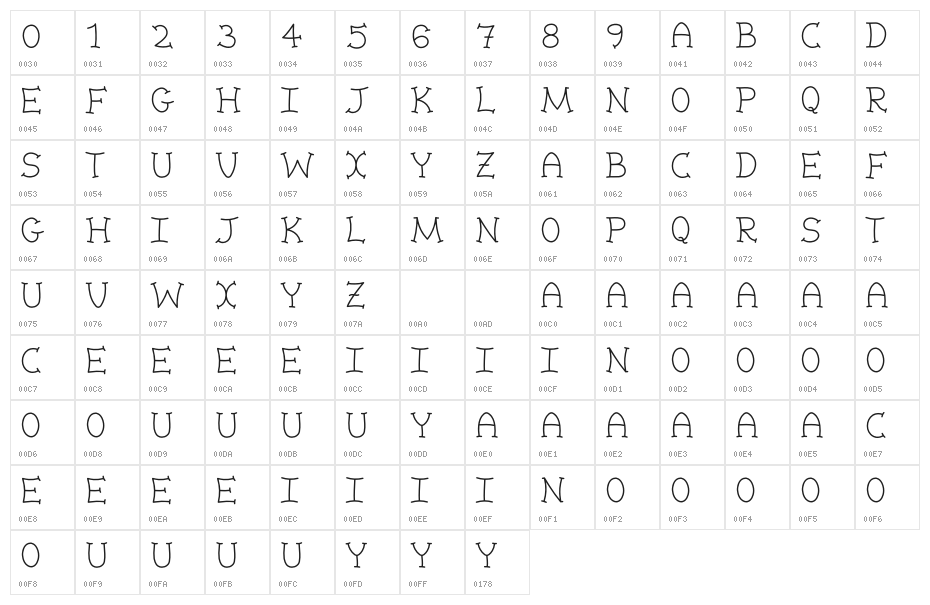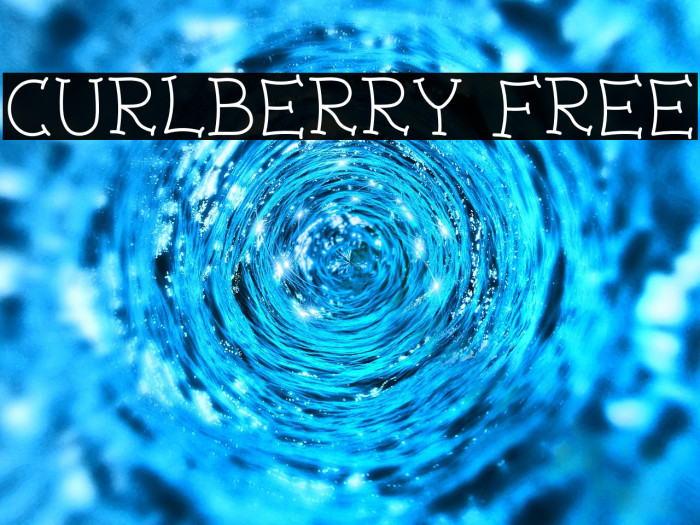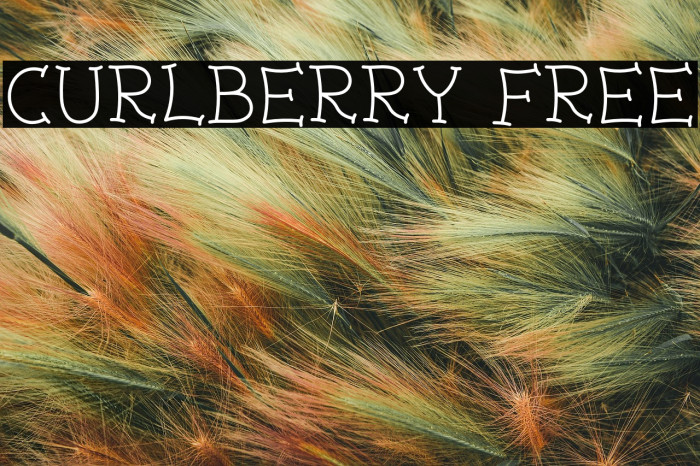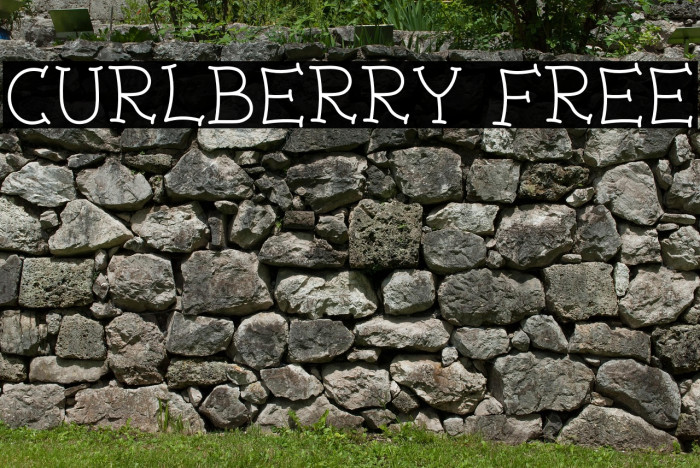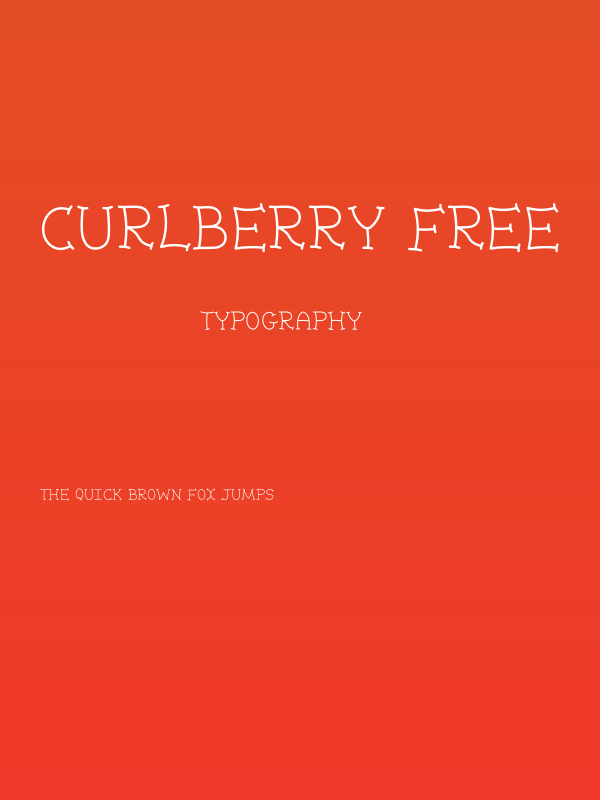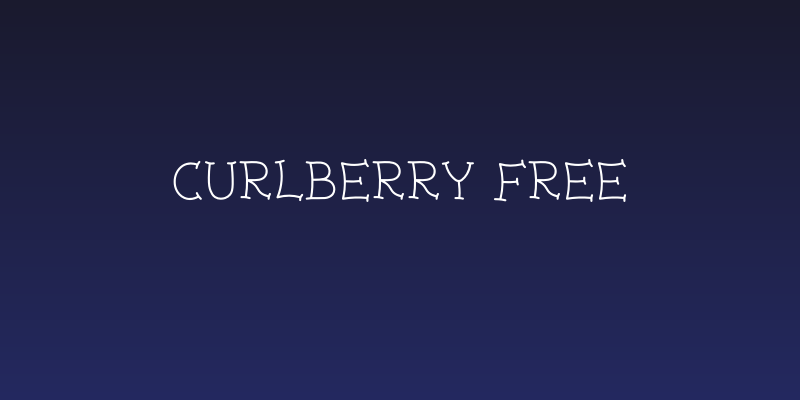
Curlberry Free Font
Curlberry Free Description
This font features a whimsical and playful design, characterized by its unique curl-like extensions on each letter. The strokes are consistent in width, giving it a uniform appearance, yet the added curls provide a sense of movement and creativity. The uppercase and lowercase letters maintain a consistent style, with rounded edges and a slightly informal feel. The numbers follow the same playful theme, making them suitable for creative projects. The special characters are designed to match the overall style, ensuring cohesion across all text elements.
Curlberry Free
Overall StylePlayful, Whimsical
Use CaseHeadlines, Logos, Creative projects
Proposed ProjectsIdeal for children's books, playful branding, greeting cards, and creative posters.